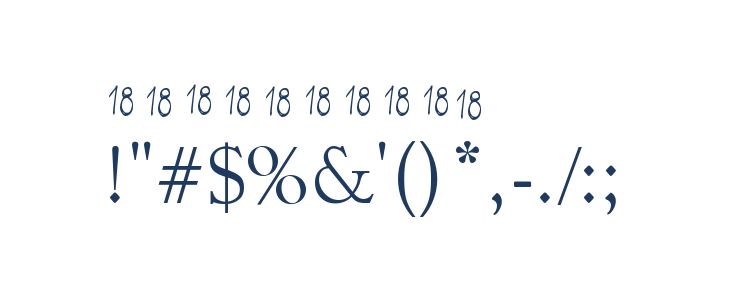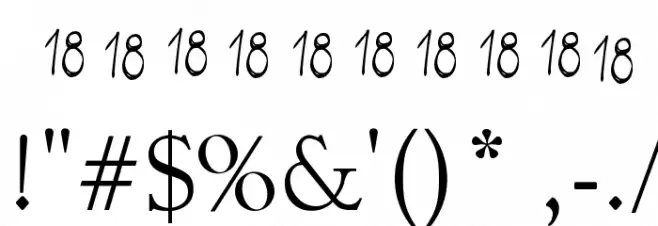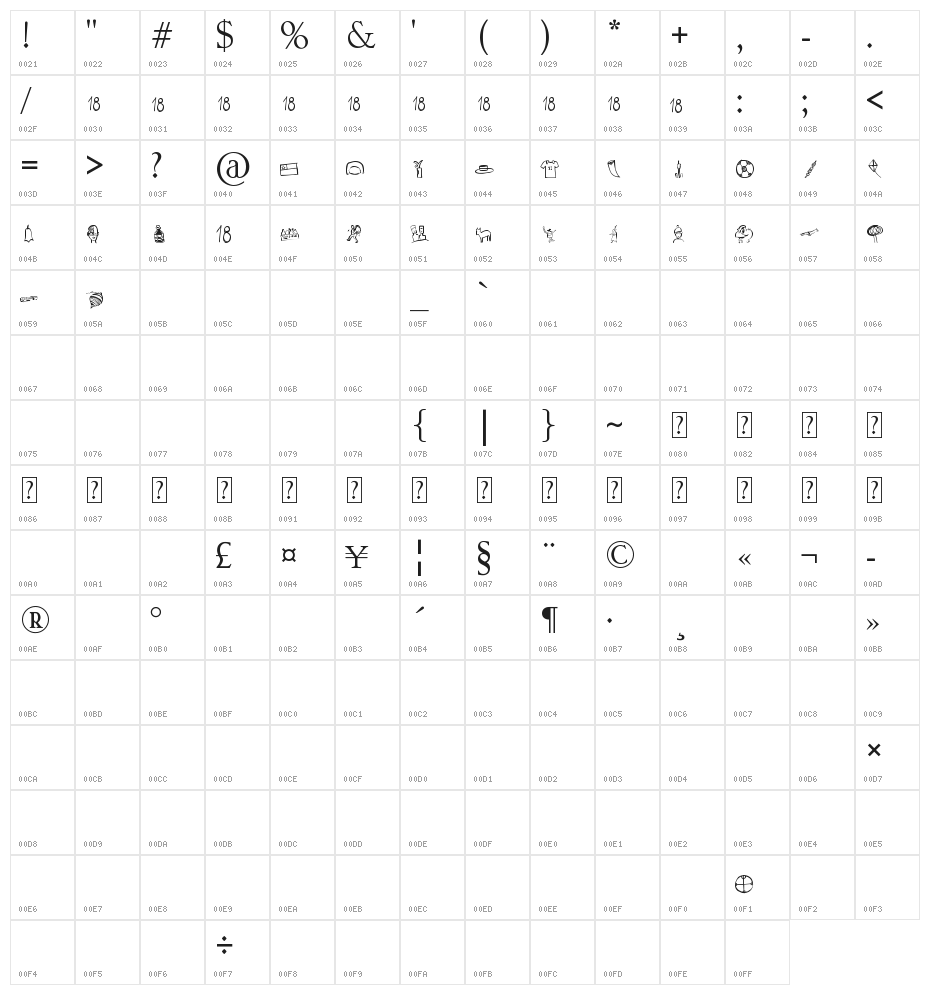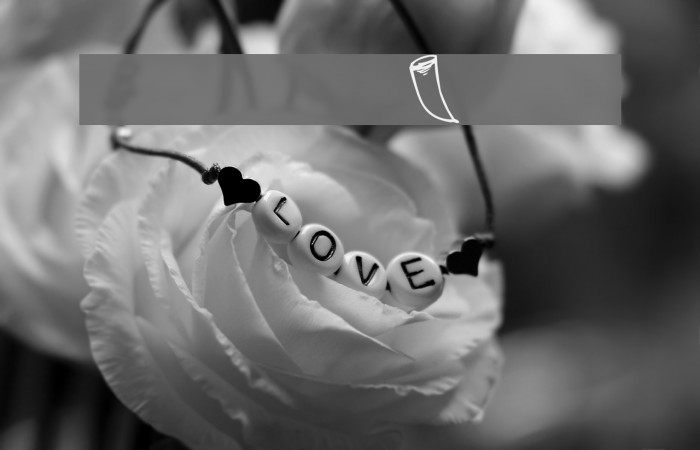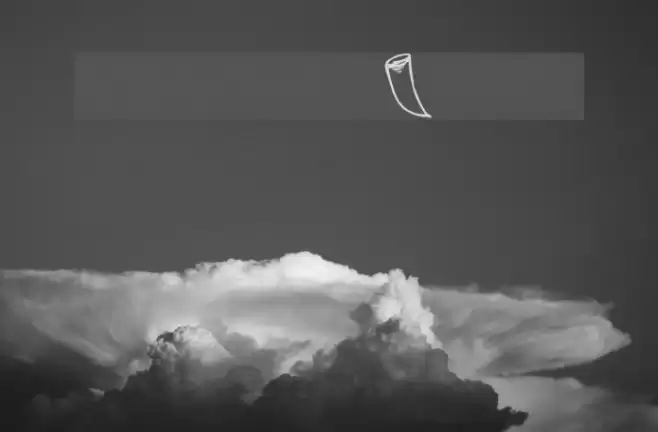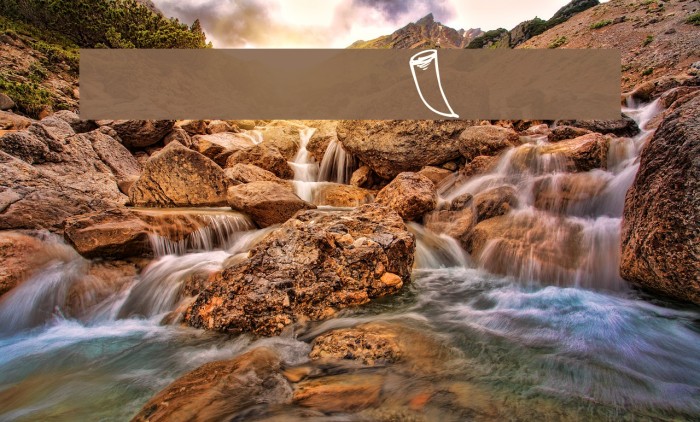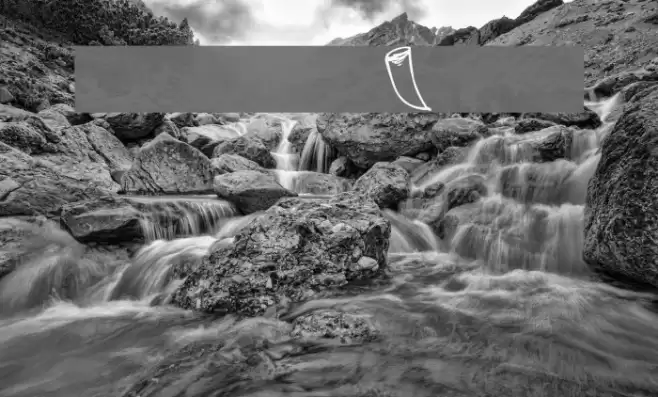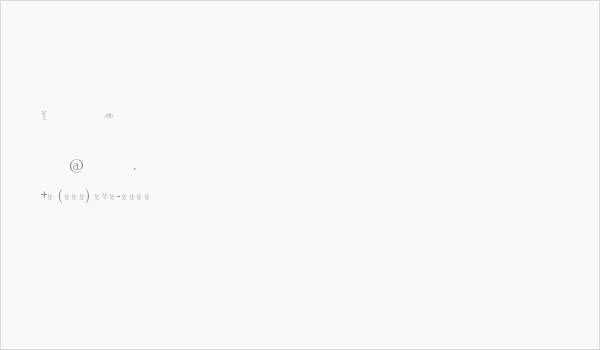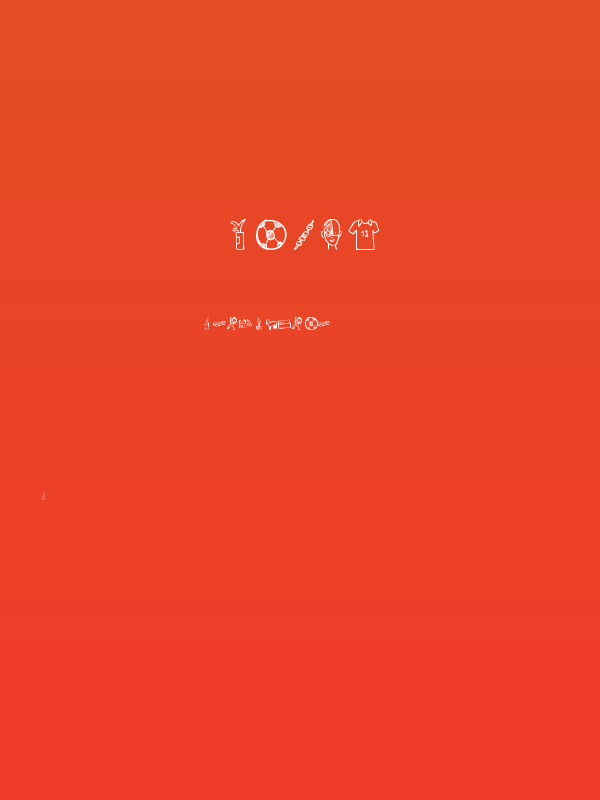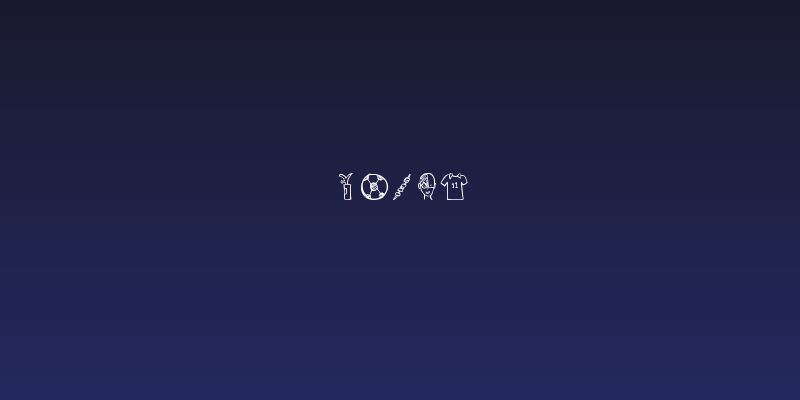
chile Font
chile Description
This is not a valid font. The image contains a series of playful, hand-drawn illustrations representing various cultural and thematic elements related to Chile. These drawings include items like a flag, hat, and various other symbols, each with a distinct, whimsical style. The characters are not standard alphabetic or numeric symbols, but rather unique illustrations that capture a specific cultural essence.
| Use Case | Illustrations, Themed graphics |
| Proposed Projects | These illustrations could be used for educational materials, cultural presentations, or themed graphic design projects. |